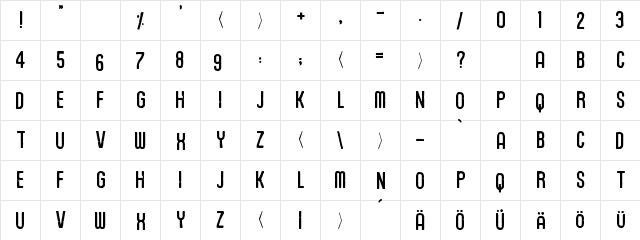
Union Agrochem Charkrapetch
Union Agrochem is a composed and adaptable typeface that performs quietly and consistently across a wide range of design contexts.
Pro Tip: Pair Union Agrochem with a font of contrasting weight or personality to build a more expressive typographic hierarchy.